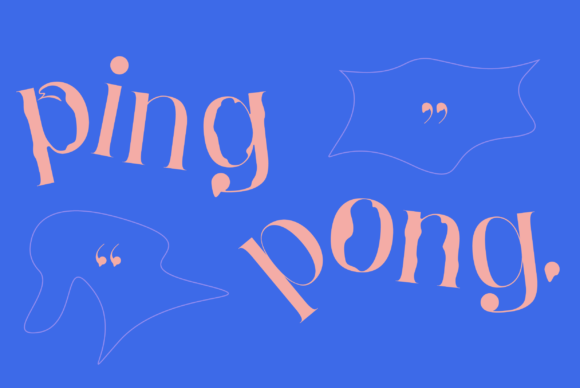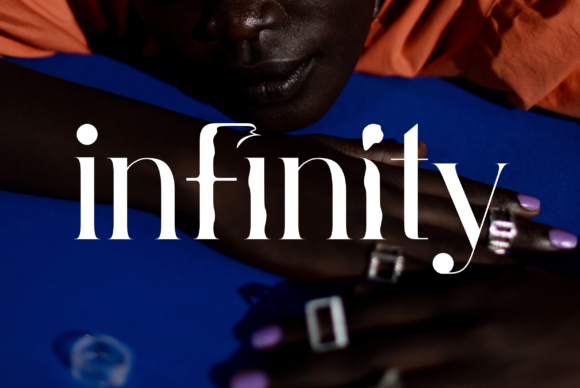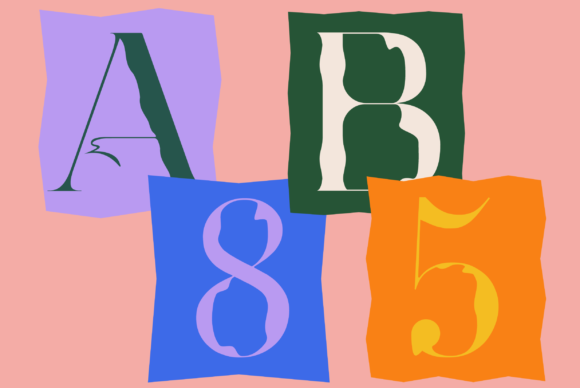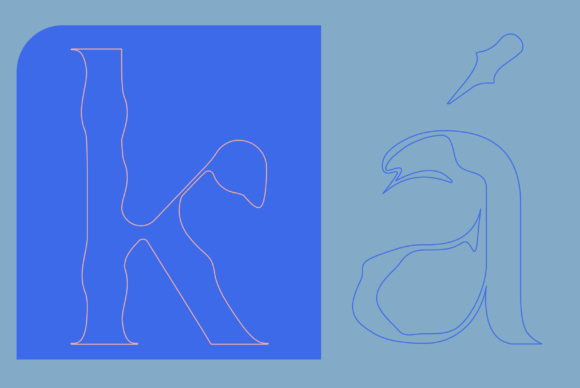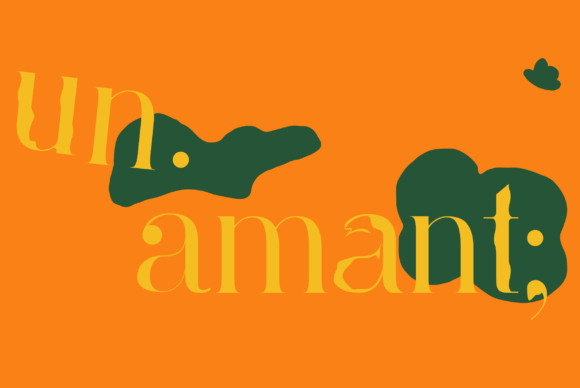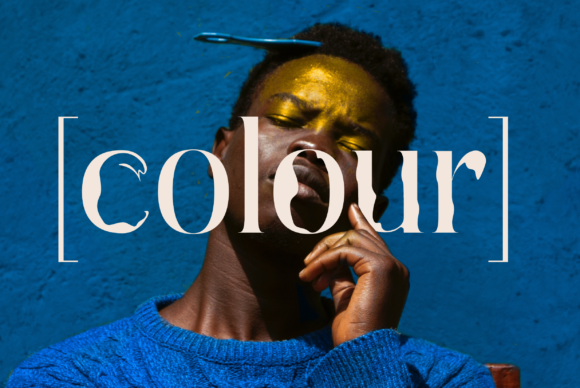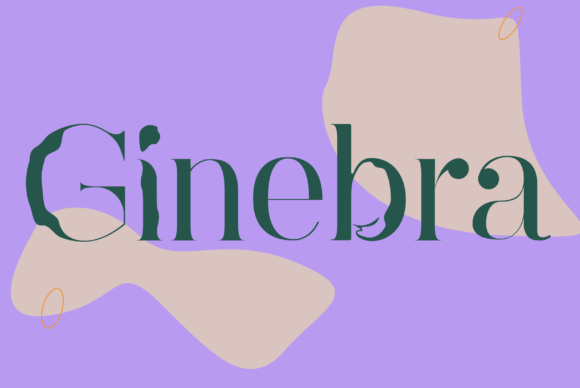
Ginebra Font: Elevate Your Designs with Elegance and Versatility
In the world of typography, few fonts manage to strike a balance between elegance and playfulness. Ginebra Font, also known as GinZwei, is one such exceptional typeface that embodies sophistication and charm. This stunning Didot Serif font is a versatile tool that can elevate your designs, making it a favorite among designers and crafters. In this article, we’ll explore the unique features of Ginebra Font and how it can add a touch of glamour to your projects.
The Unique Characteristics of Ginebra Font
Ginebra Font boasts two variables that can be combined in the same word, offering endless possibilities for creative expression. This elegant and fun typeface is reminiscent of a high-end fashion magazine, exuding an air of enticement and sexiness. The font’s design is characterized by its refined serifs, making it perfect for projects that demand a touch of sophistication.
One of the standout features of Ginebra Font is its versatility. This typeface can be used with different visual effects, making it an excellent choice for various design projects. Whether you’re working on a luxury brand’s logo, a fashion magazine, or a high-end product catalog, Ginebra Font can adapt to your needs. Its flexibility allows you to experiment with different styles, ensuring that your designs always stand out.
Discover the Hidden Gems of Ginebra Font
Upon closer inspection, Ginebra Font reveals a treasure trove of hidden gems. The font’s unique design elements, such as its elegant serifs and refined lines, make it an excellent choice for designs that require a touch of whimsy. Ginebra Font’s ability to combine two variables in the same word opens up new avenues for creative expression, allowing you to craft truly one-of-a-kind designs.
Ginebra Font is an excellent addition to any designer’s or crafter’s toolkit. Its elegance and versatility make it an ideal choice for a wide range of projects, from fashion and beauty to luxury and lifestyle. Whether you’re a seasoned designer or a crafty enthusiast, Ginebra Font can help you elevate your designs and add a touch of sophistication to your work.
Tips for Using Ginebra Font
To get the most out of Ginebra Font, here are a few tips to keep in mind:
• Experiment with different visual effects to add depth and interest to your designs.
• Combine Ginebra Font with other typefaces to create a unique and eye-catching look.
• Use Ginebra Font to add a touch of elegance to your designs, making it perfect for luxury brands and high-end products.
Ginebra Font is a stunning Didot Serif typeface that offers elegance, versatility, and endless creative possibilities. Its unique design elements, combined with its ability to combine two variables in the same word, make it an excellent choice for designers and crafters. Whether you’re working on a high-end fashion project or a luxury brand’s logo, Ginebra Font is sure to elevate your designs and add a touch of sophistication. With its flexibility and charm, Ginebra Font is a must-have for anyone looking to take their designs to the next level.
Get Ready to Elevate Your Designs with Ginebra Font